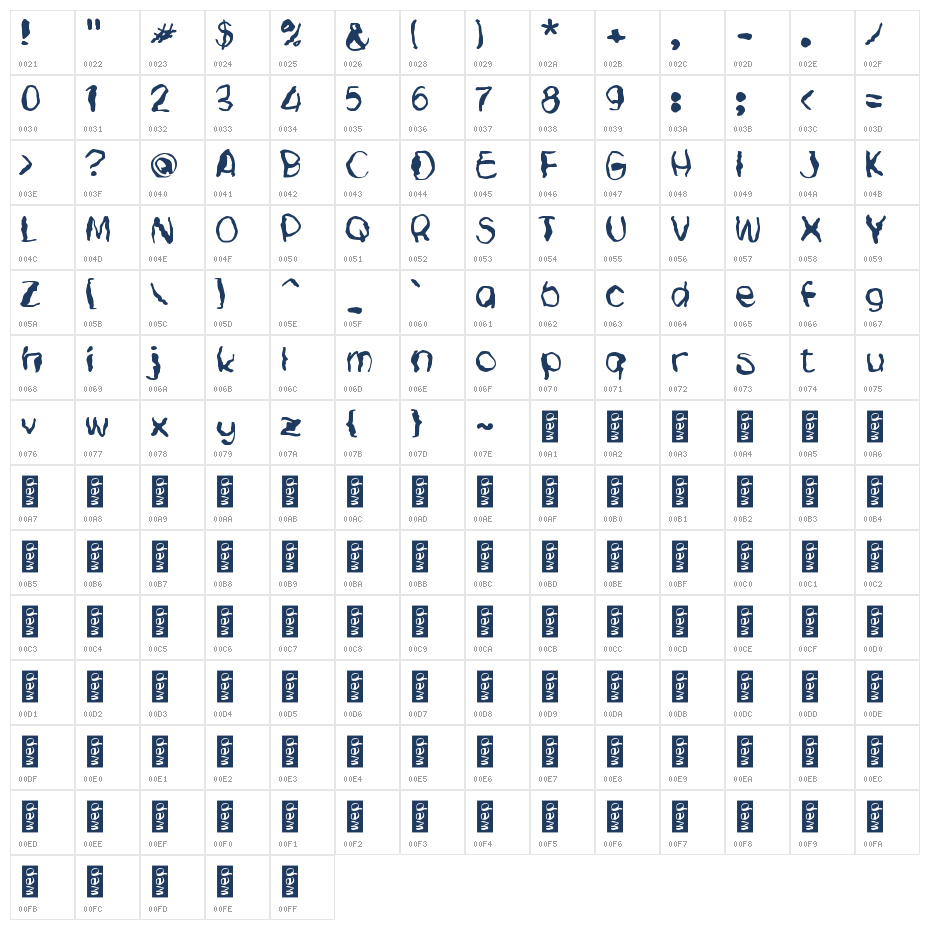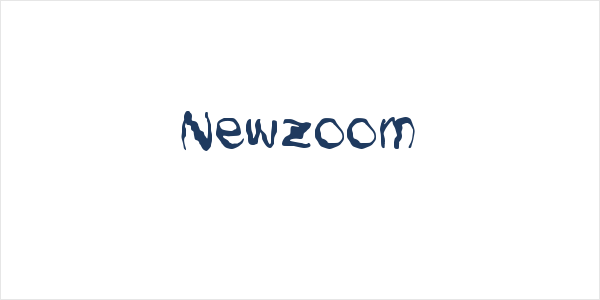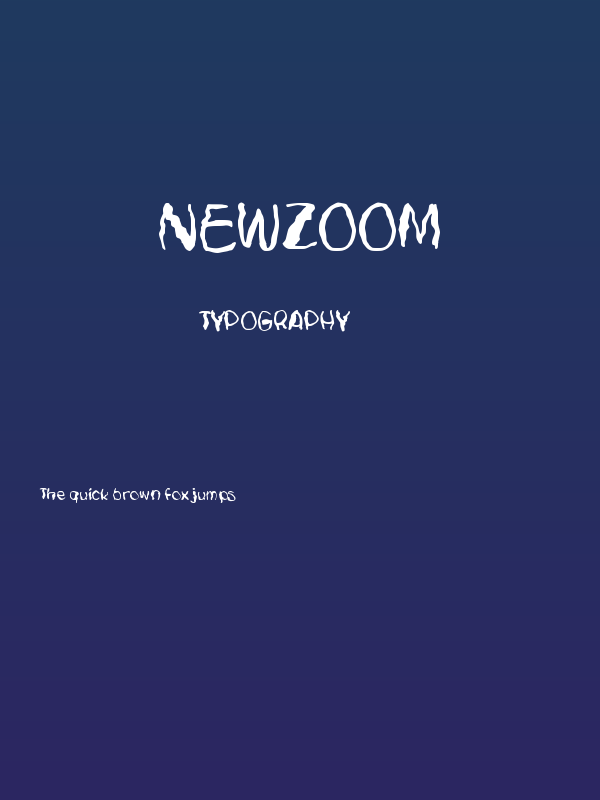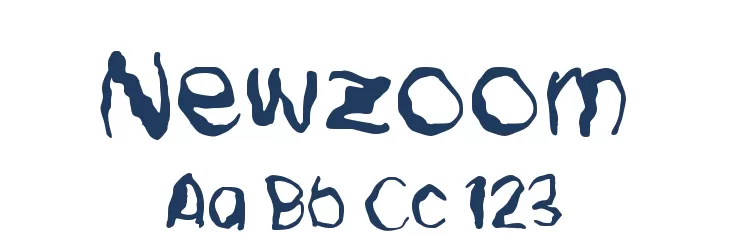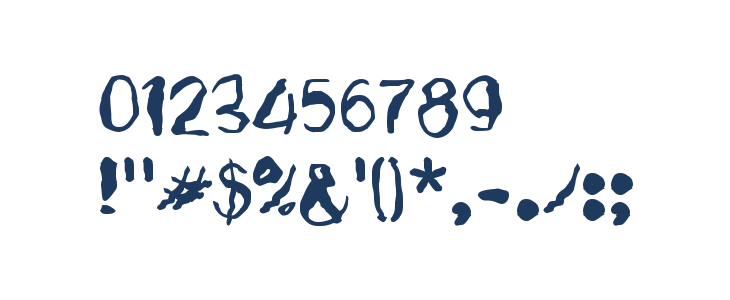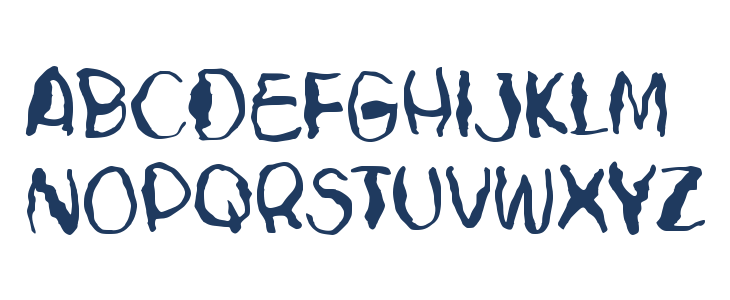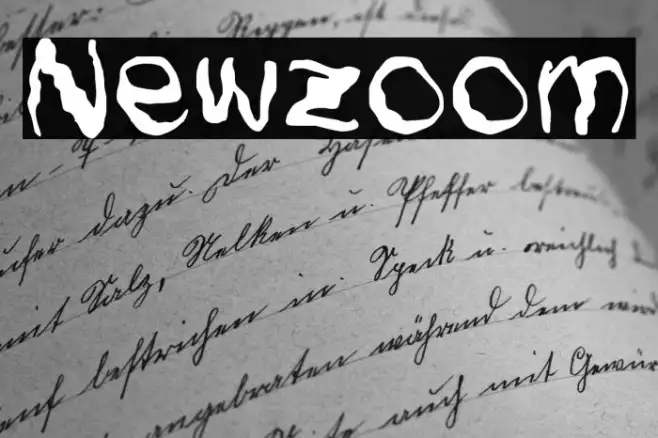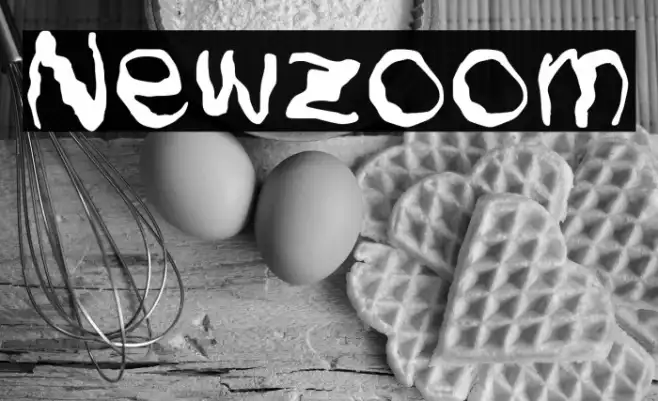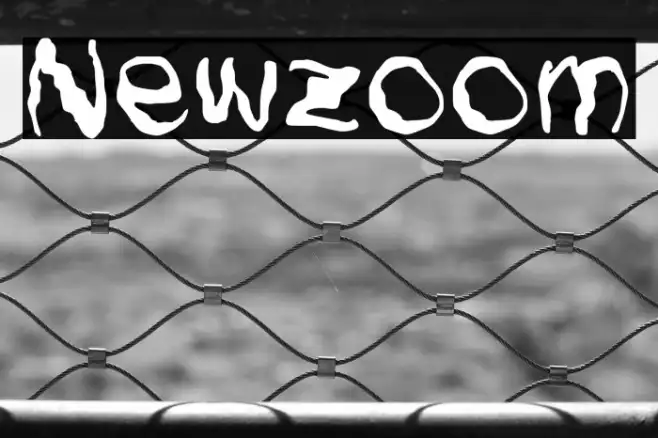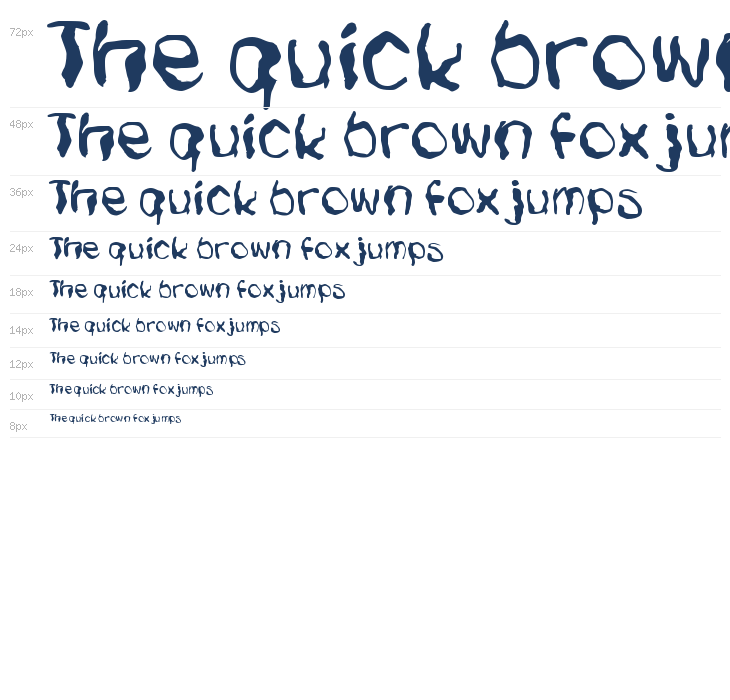
Newzoom Font
Newzoom Description
A decorative, irregular, hand-drawn style font with a casual, artistic appearance. The characters have uneven, jagged edges, giving it a playful and expressive feel.
NEWZOOM UPPERCASE
NEWZOOM LOWERCASE
NEWZOOM OTHER CHARS
| Overall Style | Casual, Artistic, Hand-drawn |
| Use Case | Headlines, Artistic projects, Logos, Creative designs |